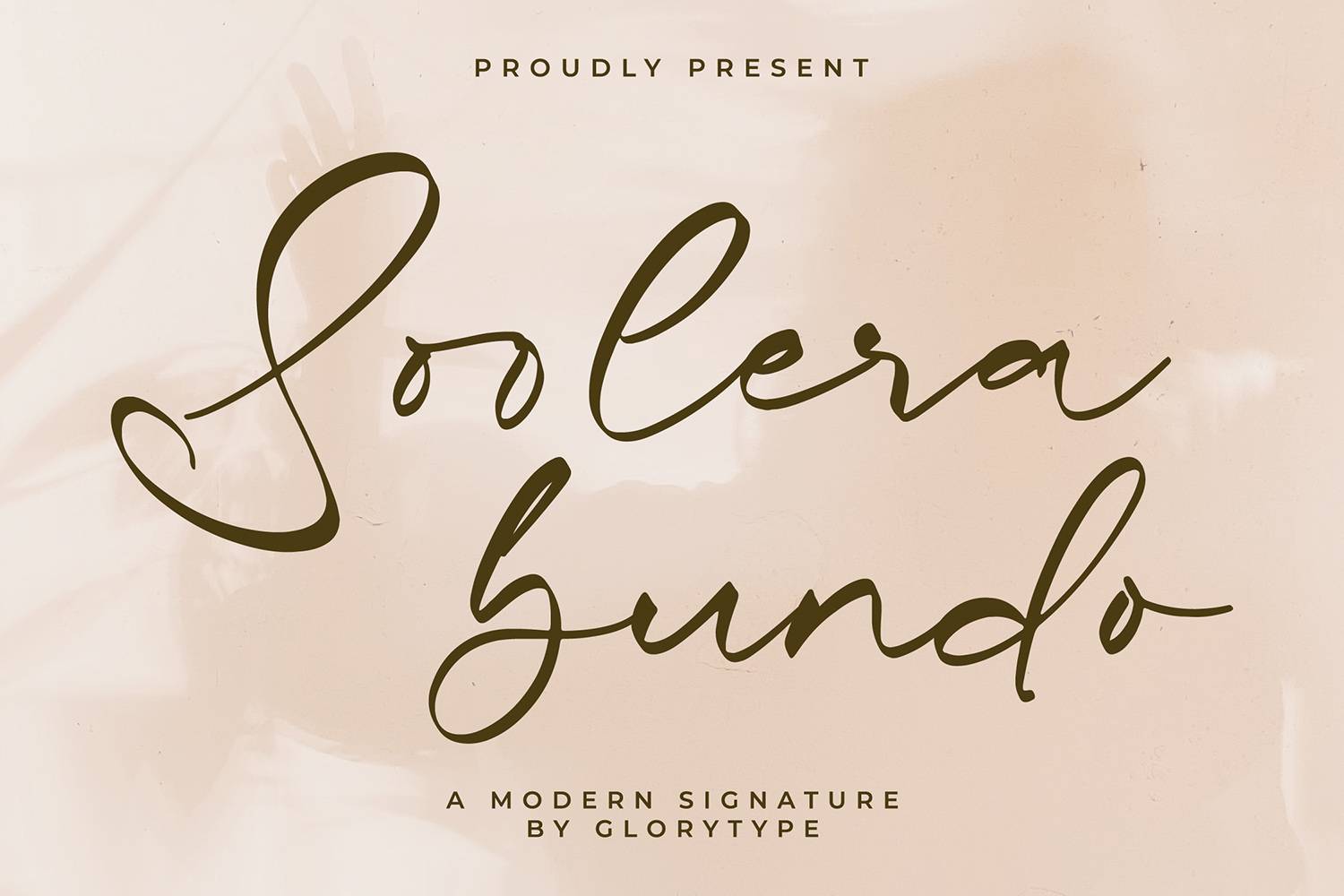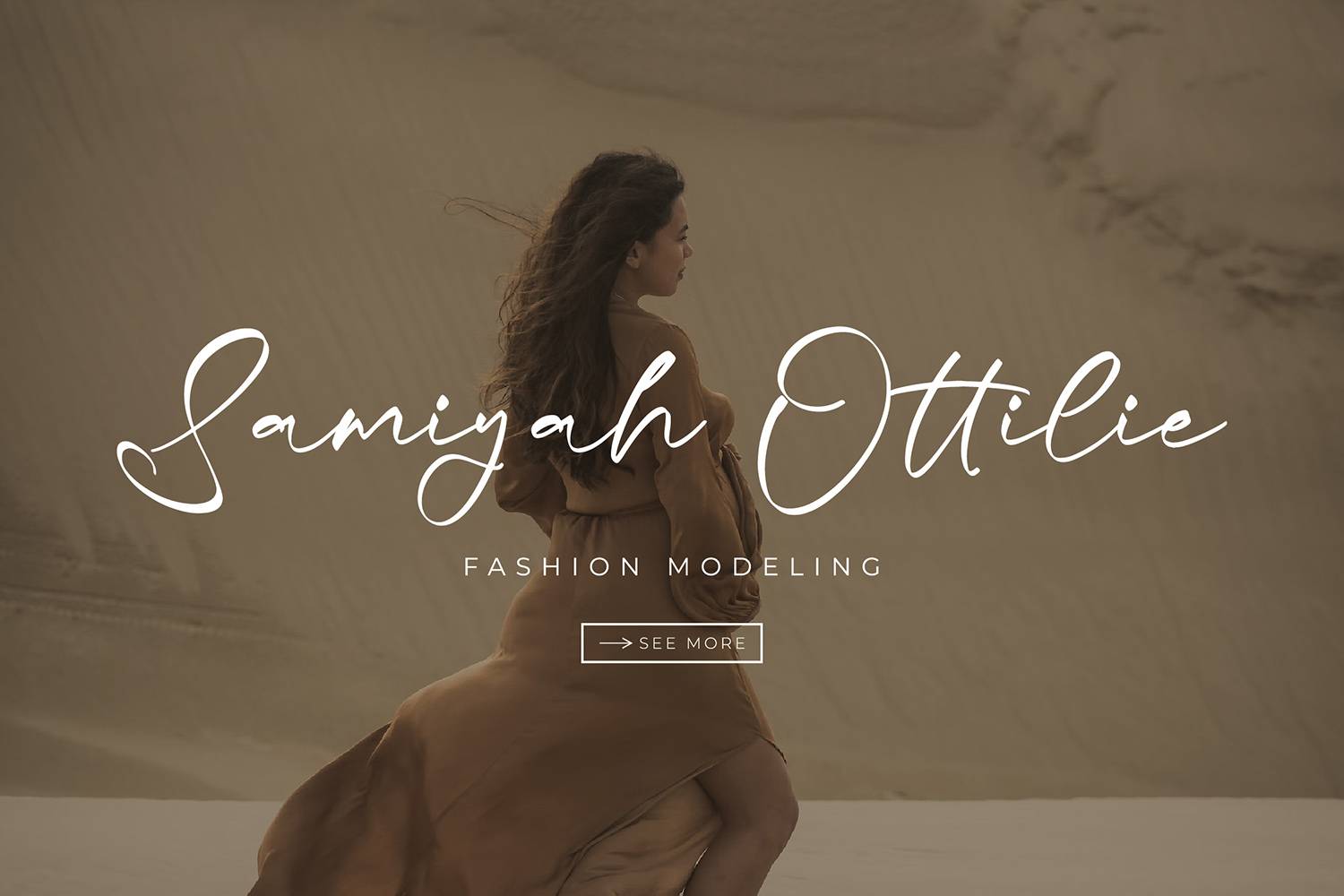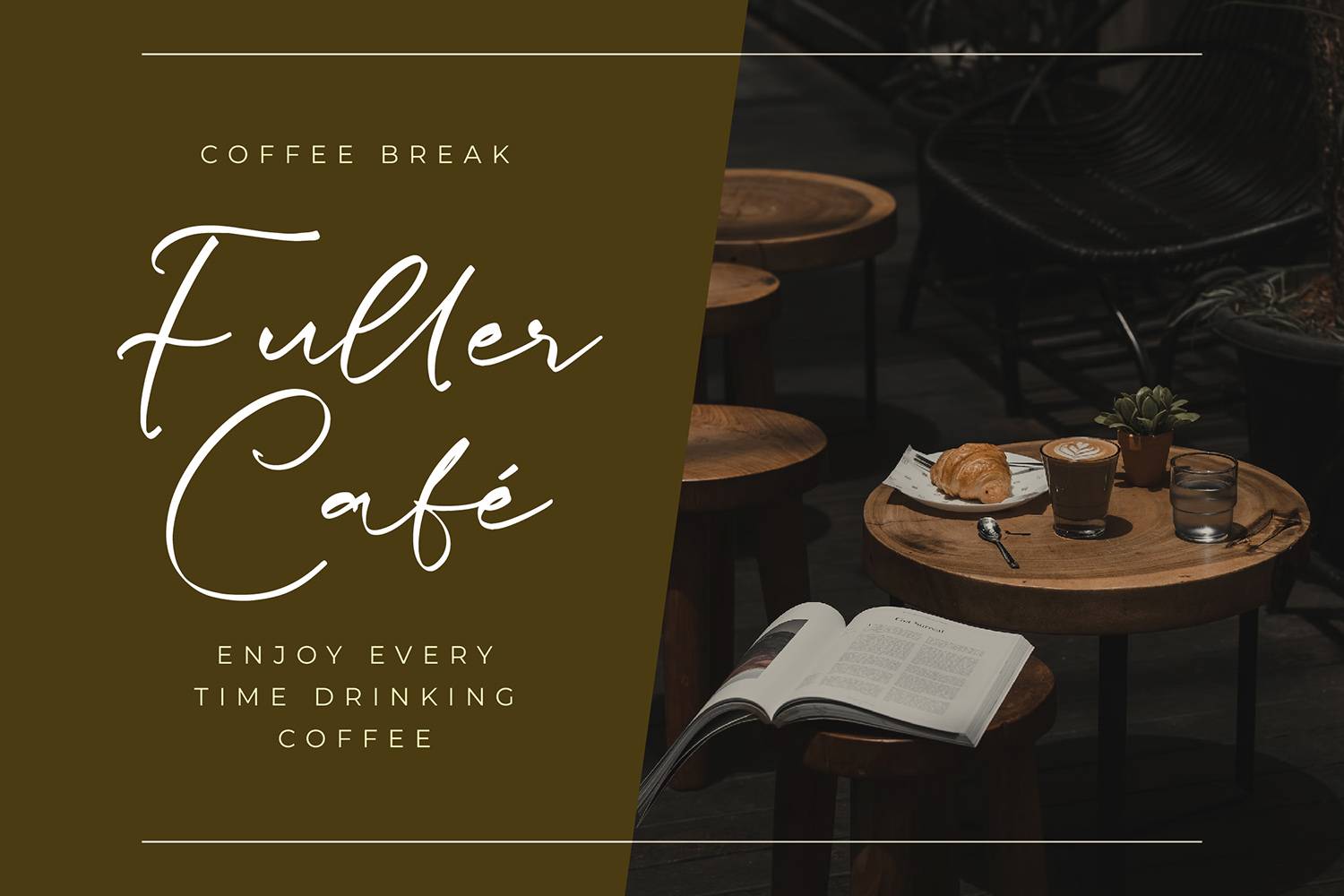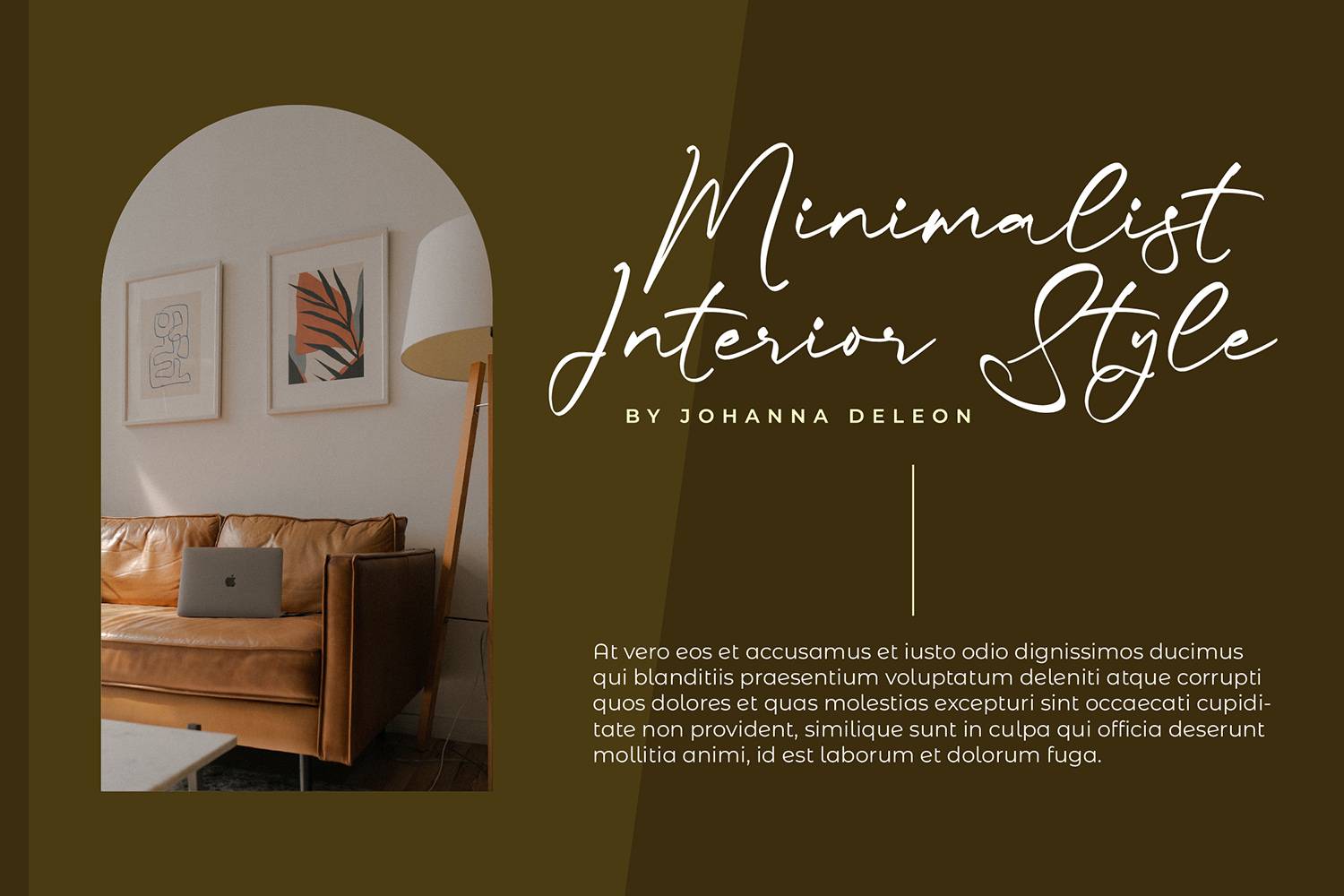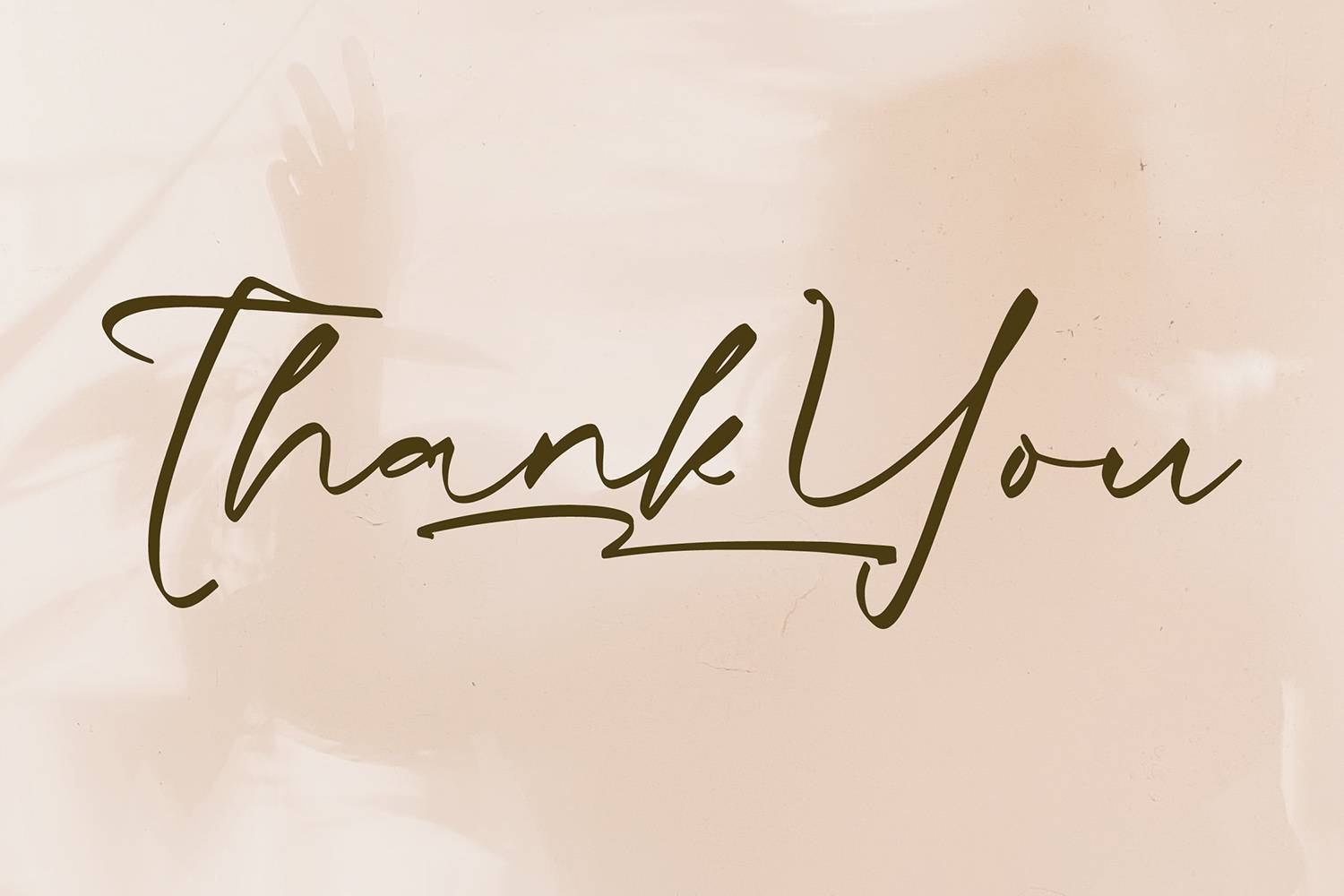
Soolera Bundo is an elegant script font featuring delicate, flowing letterforms with a light weight and fine strokes that mimic natural handwriting. Its slender, slightly whimsical style conveys a graceful and personal touch, making it ideal for invitations, branding, and projects that seek a sophisticated yet approachable feel. This font works beautifully in designs that desire a blend of refined charm and creative flair.
Soolera Bundo Font
About Soolera Bundo Font